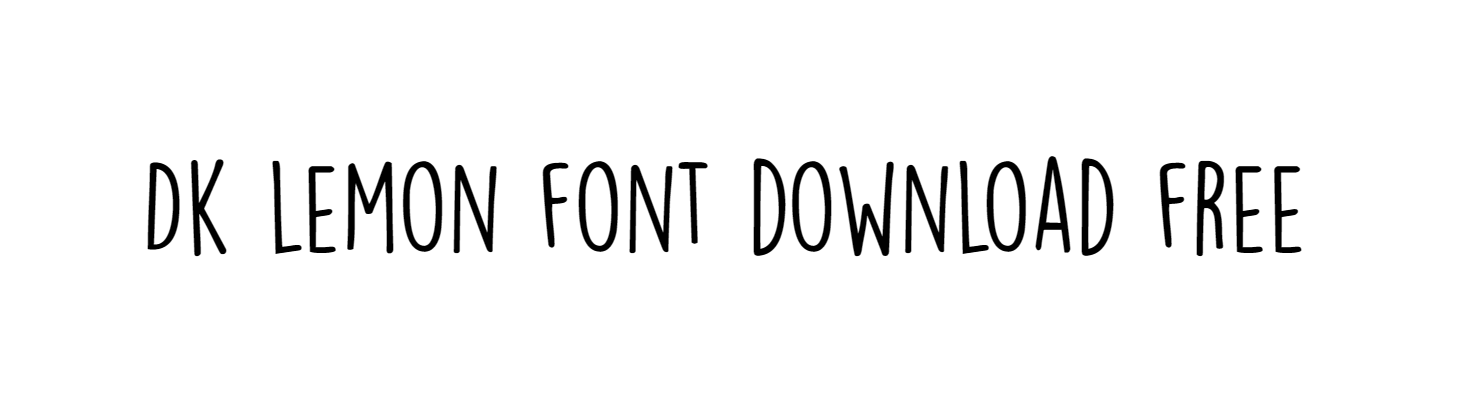
DK Lemon Yellow Sun Font
DK Lemon Yellow Sun
DK Lemon Yellow Sun is a handwritten font created by David Kerkhoff. It looks like someone actually wrote it by hand: relaxed, friendly and a little imperfect in a good way. It's a free download, and you can try it with your own text in the preview above first.
- Designer: David Kerkhoff
What You Can Type With DK Lemon Yellow Sun
You get every letter from A to Z in both cases and all the numbers from 0 to 9, which means DK Lemon Yellow Sun can handle full sentences, dates and prices. Common punctuation such as !, ?, @ and $ is included as well. It also has the accented letters you need for Spanish, French, German, Portuguese and Italian.
Where DK Lemon Yellow Sun Works Best
DK Lemon Yellow Sun is a natural fit for greeting cards, journal pages and friendly social posts. Set it a bit larger than you would a normal text font. Handwriting styles lose their charm once they get too small to read comfortably.
Does DK Lemon Yellow Sun support accented letters?
Yes. DK Lemon Yellow Sun includes the accented letters needed for Spanish, French, German, Portuguese and Italian, so it works for more than just English.